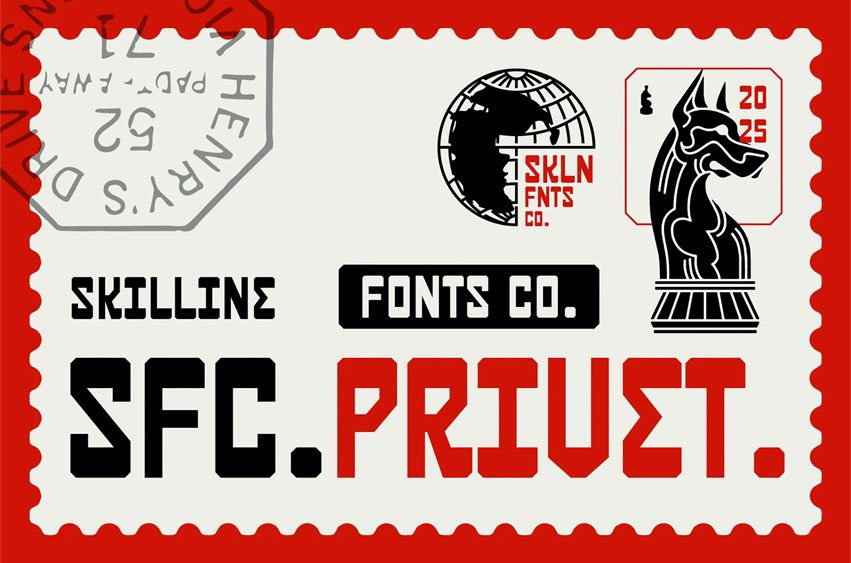
Privet Font is a bold geometric display font inspired by industrial architecture, mechanical structure, and modern brutalist aesthetics.
Designed with sharp angular cuts, compact proportions, and confident weight distribution, it delivers a strong and commanding visual presence rooted in clarity and precision.